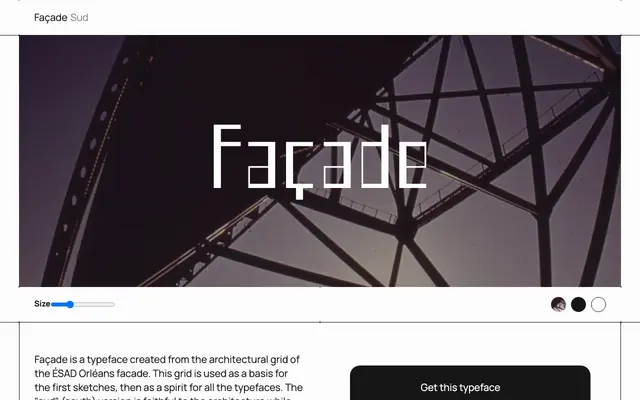
Façade
A free display typeface by Sud, available through the Free Faces gallery.
Façade is a free typeface by the designer Sud, distributed via the Free Faces gallery. Limited page content prevents detailed assessment of its full character set or stylistic range. Available for free use, it sits within the Free Faces collection of openly licensed type.
Minimal page content prevents detailed classification, but the name and foundry context suggest a display-oriented sans or decorative typeface rather than a text face.